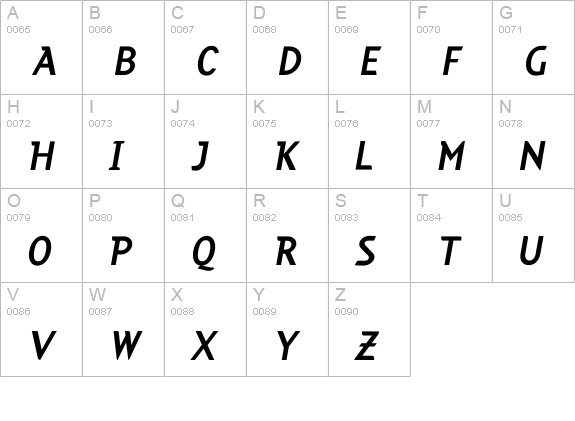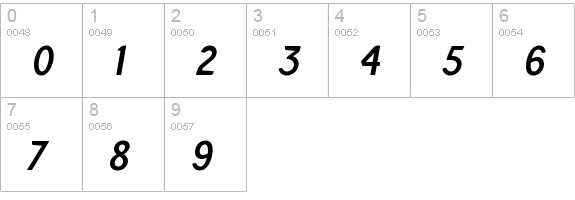
Cuban-RegularItalic Font Details
The Cuban-RegularItalic font is a stylish and versatile typeface that exudes a sense of elegance and sophistication. With its slanted design and unique flair, this font is perfect for adding a touch of creativity to your projects. The italicized form of the Cuban-Regular font adds a dynamic and modern twist to any text, making it stand out from the crowd. Best of all, this font is available for free download at FontsMarket.com. Whether you're designing a website, creating advertising materials, or working on a personal project, the Cuban-RegularItalic font is sure to make a lasting impression. Don't miss out on this opportunity to elevate your designs with this eye-catching and distinctive typeface. Download it today and let your creativity shine!